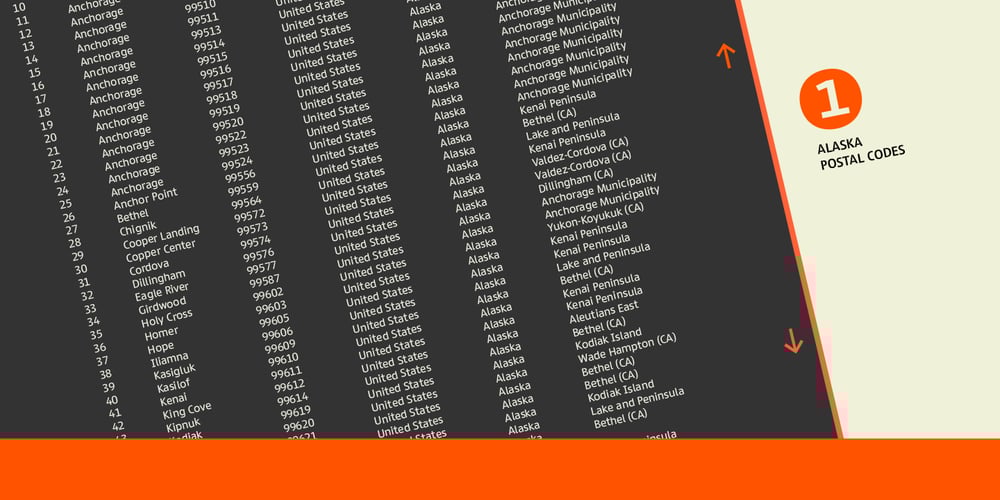
Lipa Agate
Lipa Agate font
Lipa Agate Font Family was designed by Ermin Međedović and published by TypeTogether. Lipa Agate contains 21 styles and family package options. Lipa is the name of the Slovenian national tree ‘Linden’. The typeface Lipa Agate by Croatian designer Ermin Međedović, is part of a bigger type collection, comprising various type groups into one coherent system which Ermin developed over the past 10 years. Lipa Agate is the first to be released; a sans serif designed and engineered to be used in the smallest text sizes, best under 10pt, and in very bad printing conditions. It is perfect for phone books, classified ads, directories or any other job requiring economy without jeopardising legibility. To achieve this, Lipa Agate employs a range of tools, such as deep ink-traps, narrow proportions and a tall x-height. Contemporary editorial design requires a high amount of flexibility to respond to various design situations in a consistent fashion. Lipa Agate — with its 3 levels of condensation, 4 weights and 2 sets of different x-heights, ‘High’ and ‘Low’, which share the same width — fulfils these requirements wonderfully. That’s a total of 24 fonts! To make this clean and honest workhorse face complete, its large character set also includes small caps, arrows, info-numerals and much more.